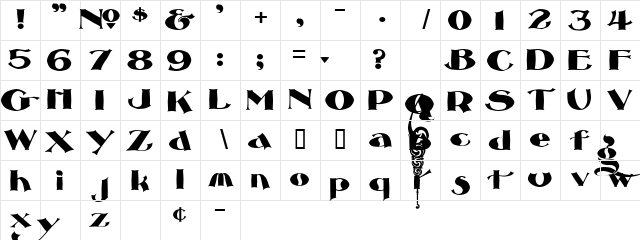
LHF Henderson Roman Regular
LHF Henderson Roman Family
Complete LHF Henderson Roman Regular glyph index. Displaying only characters natively supported by LHF Henderson Roman Regular font.
Design Context for LHF Henderson Roman
LHF Henderson Roman is a composed and adaptable typeface that performs quietly and consistently across a wide range of design contexts.